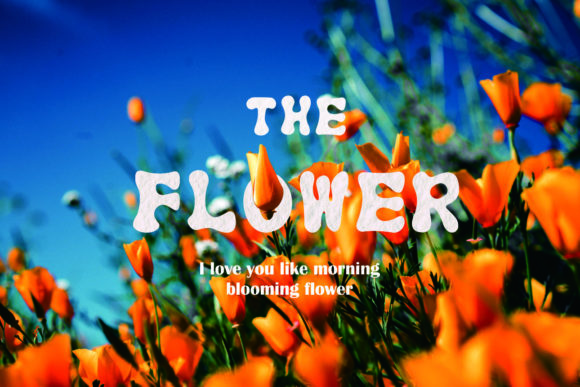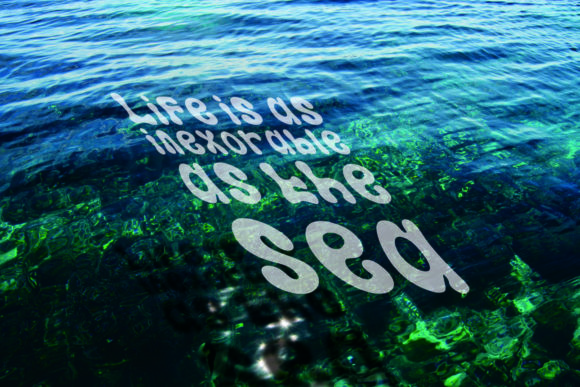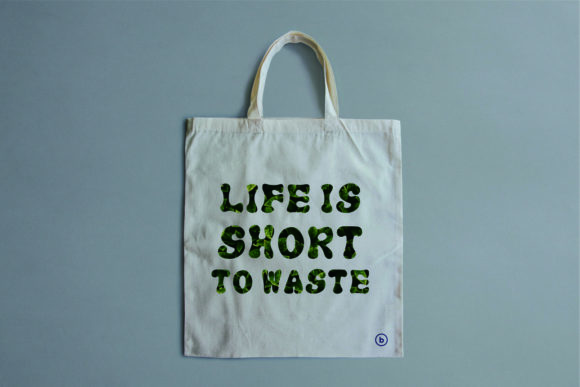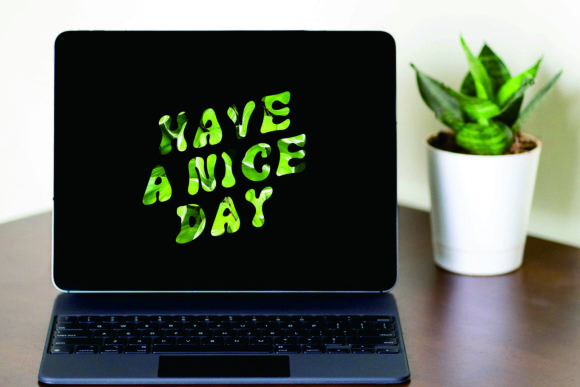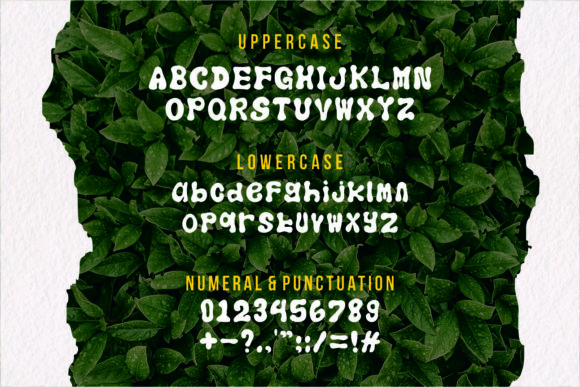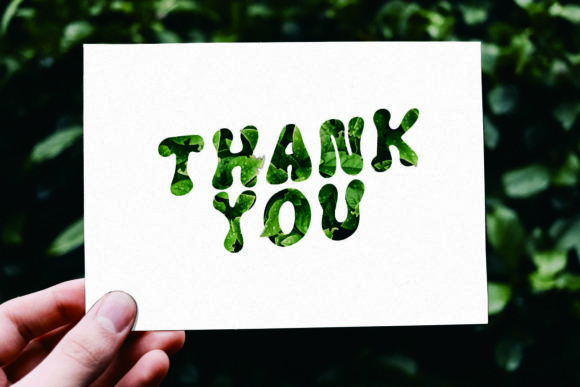
Discover the Beauty of Azalea Font: Elevate Your Nature-Inspired Designs
Are you a designer or crafter looking for a unique and captivating font to add a touch of elegance to your nature or ecology-related projects? Look no further than the Azalea Font. This incredibly cool and artsy display font is sure to take your designs to the next level, leaving you and your audience amazed by the outcome.
What is Azalea Font?
Azalea Font is a stunning display font that embodies the beauty and serenity of nature. Its unique and artistic design makes it perfect for a wide range of applications, from branding and advertising to packaging and stationery. With its flowing lines and organic feel, Azalea Font is sure to evoke a sense of wonder and connection to the natural world.
Key Features of Azalea Font
- Unique and Artistic Design: Azalea Font boasts a one-of-a-kind design that sets it apart from other fonts. Its artistic and creative feel makes it perfect for designers and crafters looking to add a touch of personality to their work.
- Nature-Inspired: With its organic feel and flowing lines, Azalea Font is inspired by the beauty of nature. It’s perfect for designs related to ecology, conservation, and the outdoors.
- Highly Versatile: Azalea Font can be used in a wide range of applications, from digital designs to print materials. Its scalability and legibility make it perfect for use in various contexts.
How to Use Azalea Font in Your Designs
Azalea Font is incredibly versatile and can be used in a variety of design applications. Here are a few ideas to get you started:
- Nature-Inspired Branding: Use Azalea Font to create stunning brand identities for eco-friendly products, outdoor gear, or conservation organizations.
- Ecology-Related Marketing Materials: Add Azalea Font to your marketing materials, such as brochures, flyers, or posters, to create eye-catching and engaging designs.
- Packaging Design: Use Azalea Font to create beautiful and unique packaging designs for nature-inspired products, such as skincare products or outdoor gear.
- Stationery and Paper Crafts: Add a touch of elegance to your stationery and paper crafts with Azalea Font. Use it to create stunning greeting cards, invitations, or journal pages.
Tips for Getting the Most Out of Azalea Font
To get the most out of Azalea Font, here are a few tips to keep in mind:
- Experiment with Different Sizes and Colors: Azalea Font looks stunning in a variety of sizes and colors. Experiment with different combinations to find the one that works best for your design.
- Pair it with Other Fonts: Azalea Font pairs well with other fonts, especially those with a natural and organic feel. Experiment with different font combinations to create a unique and visually appealing design.
- Use it to Create Visual Hierarchy: Use Azalea Font to create a visual hierarchy in your design. Use larger sizes for headings and smaller sizes for body text to create a clear and easy-to-read design.
Azalea Font is a stunning and versatile display font that’s perfect for designers and crafters looking to add a touch of elegance to their nature-inspired designs. With its unique and artistic design, Azalea Font is sure to elevate your designs and leave a lasting impression on your audience. So why wait? Download Azalea Font today and start creating stunning designs that showcase the beauty of nature.